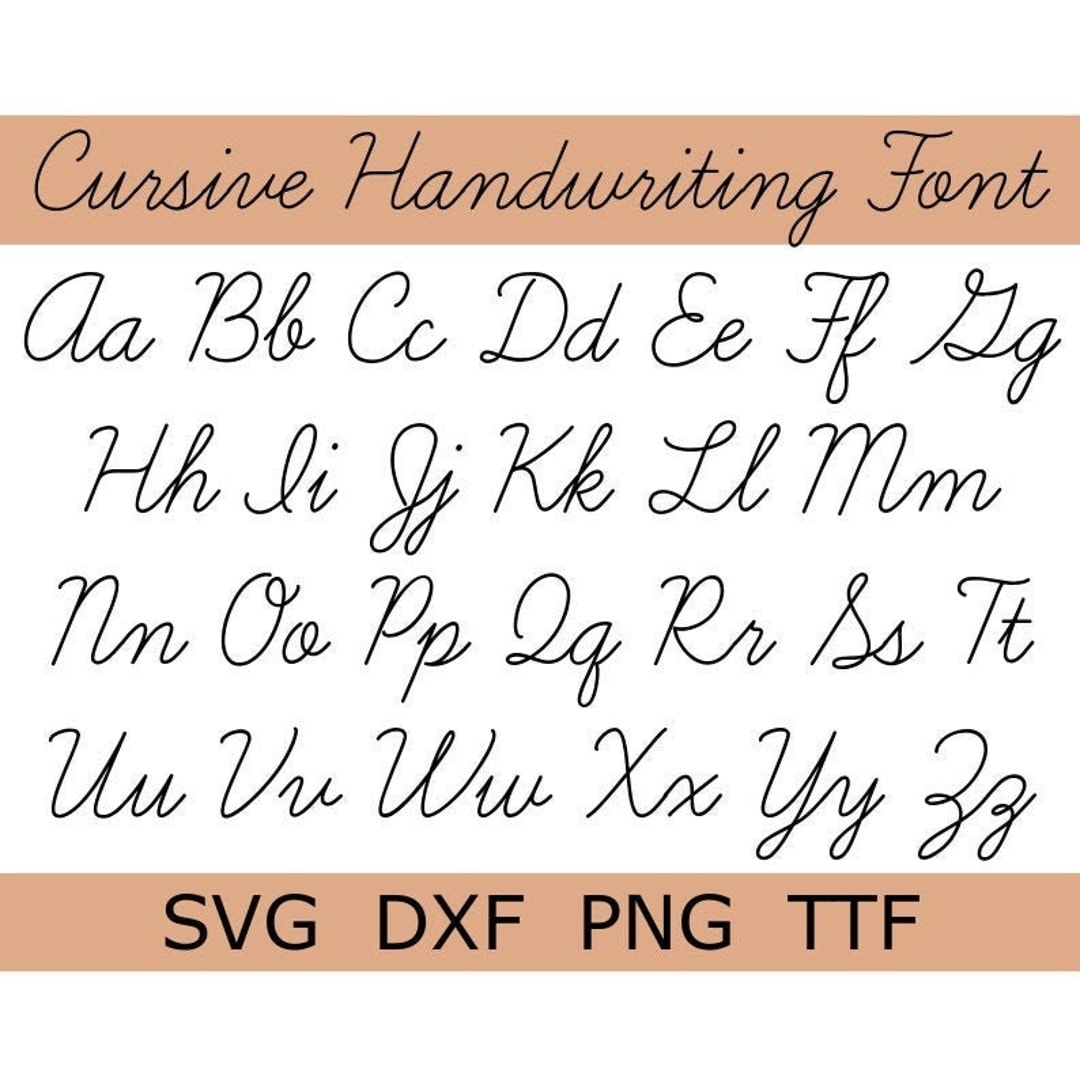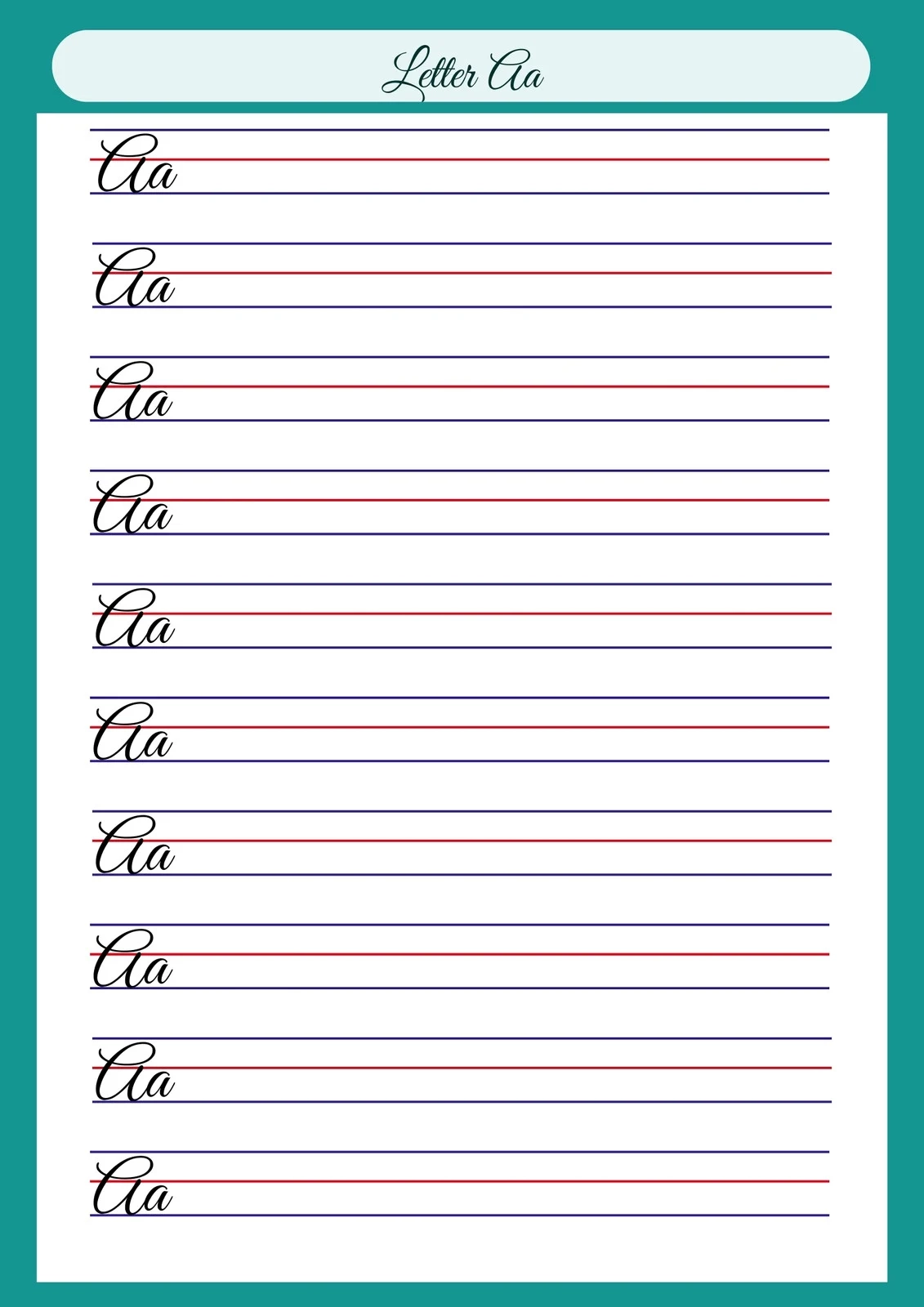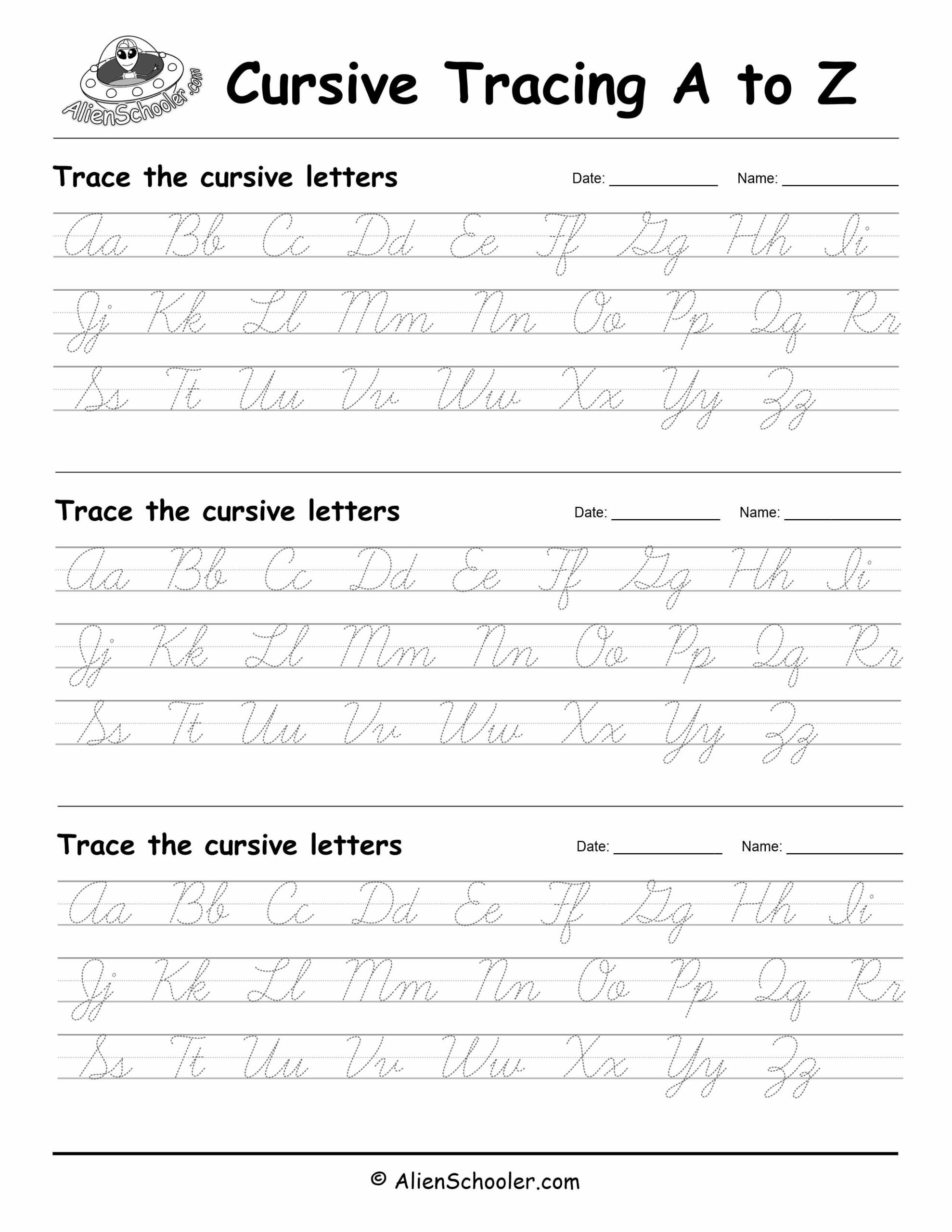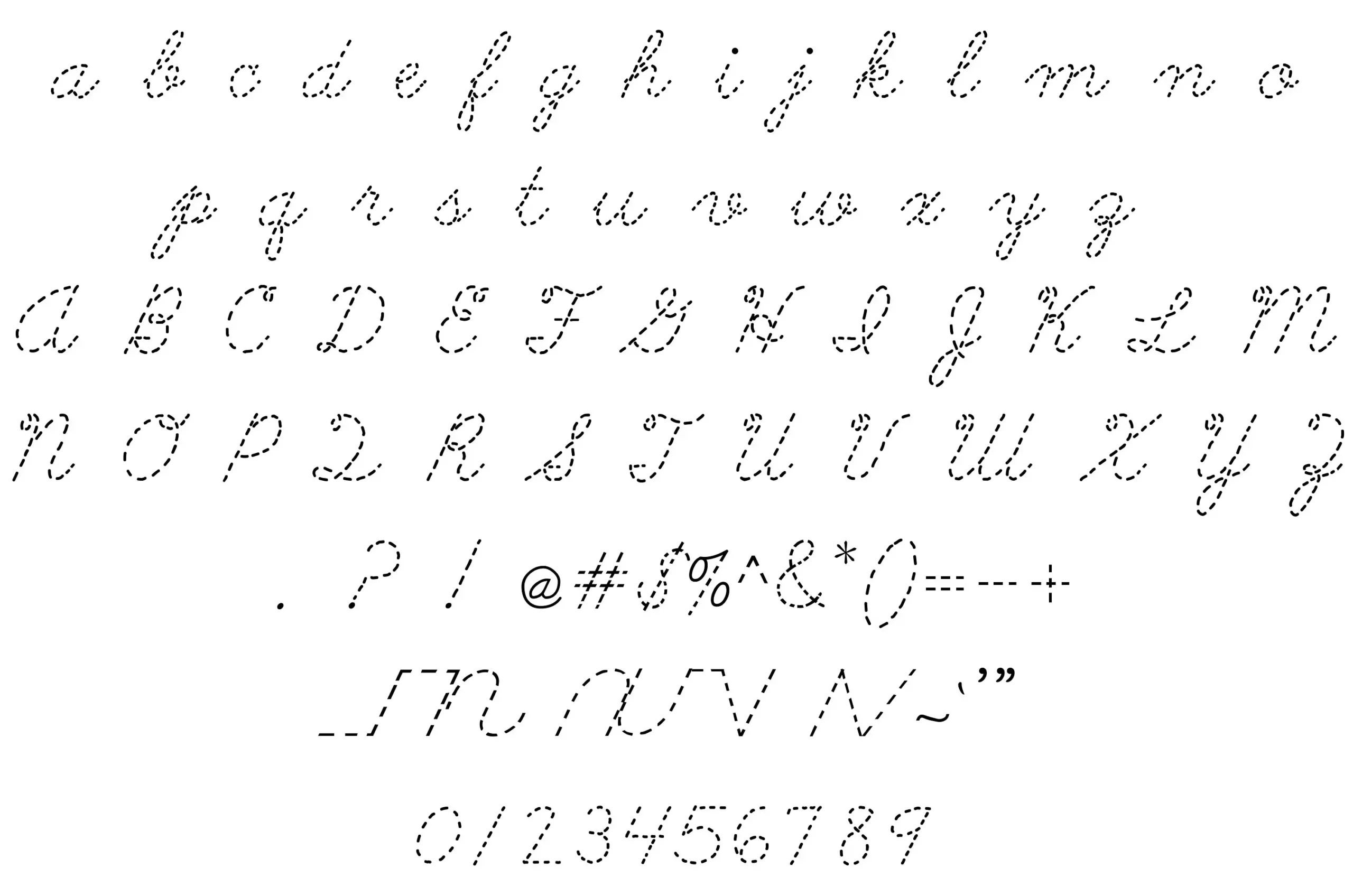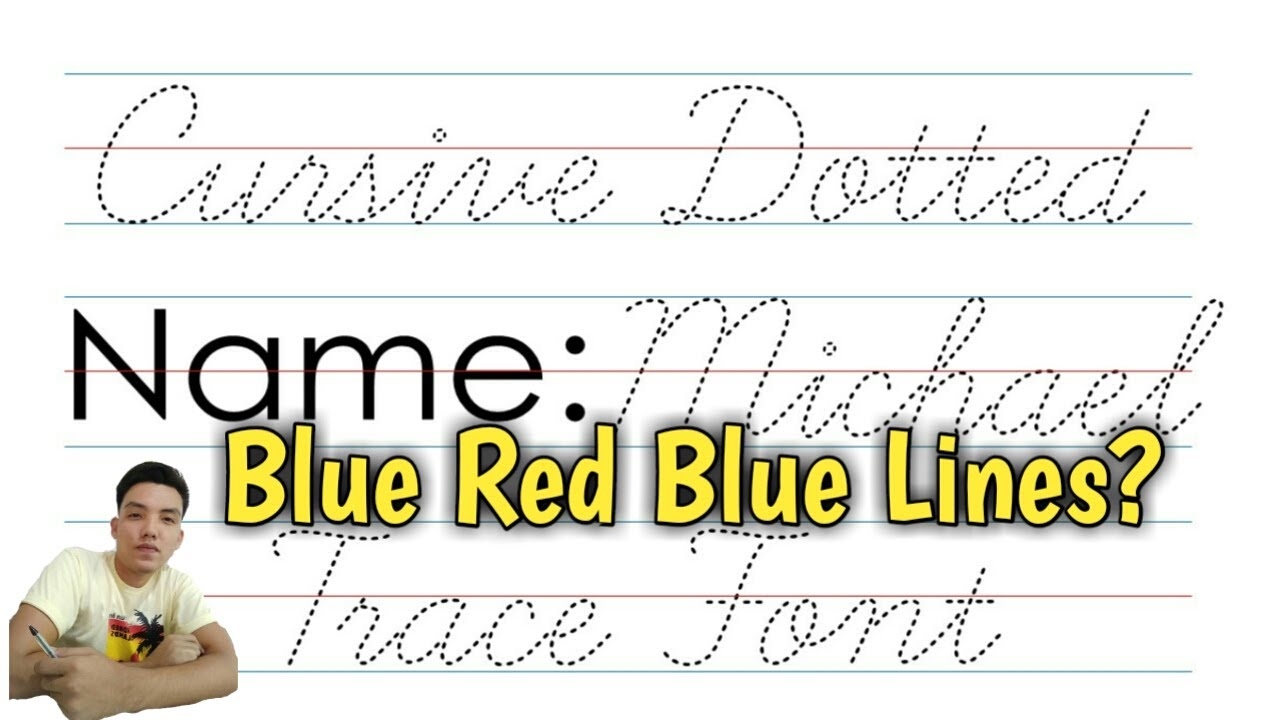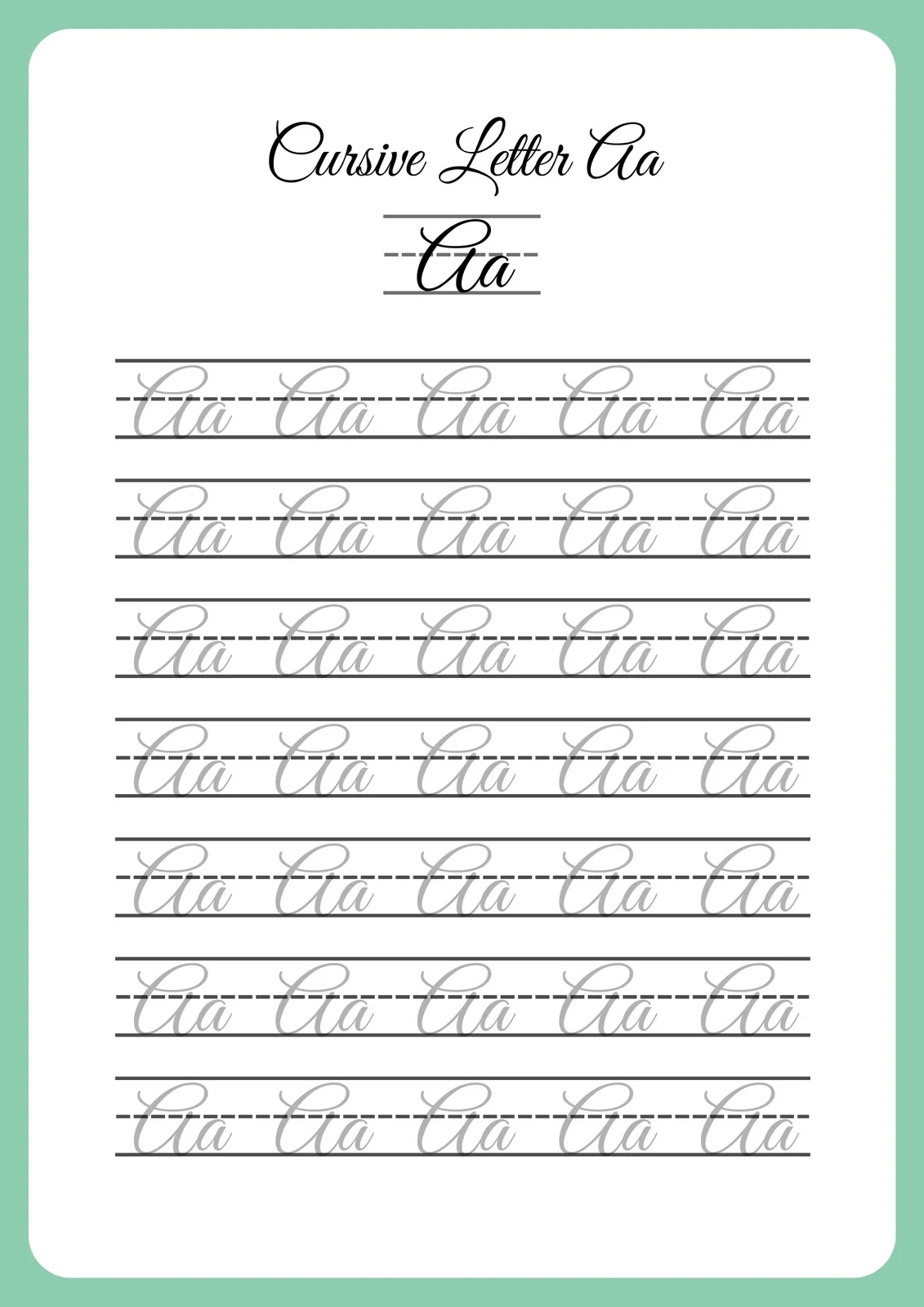
Cursive tracing fonts are a delightful way to enhance your writing projects. They add a personal touch, making any text feel more artistic and engaging. Whether for educational purposes or creative designs, these fonts can be incredibly useful.
Many websites offer cursive tracing fonts free download, allowing you to explore various styles without spending a dime. These fonts are perfect for teachers looking to create worksheets or parents wanting to help their kids practice handwriting.
When choosing a cursive tracing font, consider its readability and style. Some fonts are more decorative, while others focus on clarity. It’s essential to pick one that aligns with your project’s goals and audience.
Incorporating cursive tracing fonts into your projects can elevate their appeal and effectiveness. With so many free options available, you can easily find the perfect font to match your creative vision.
Exploring cursive tracing fonts can be an enjoyable experience. With the right resources, you can enhance your writing and make it more visually appealing for everyone who sees it.